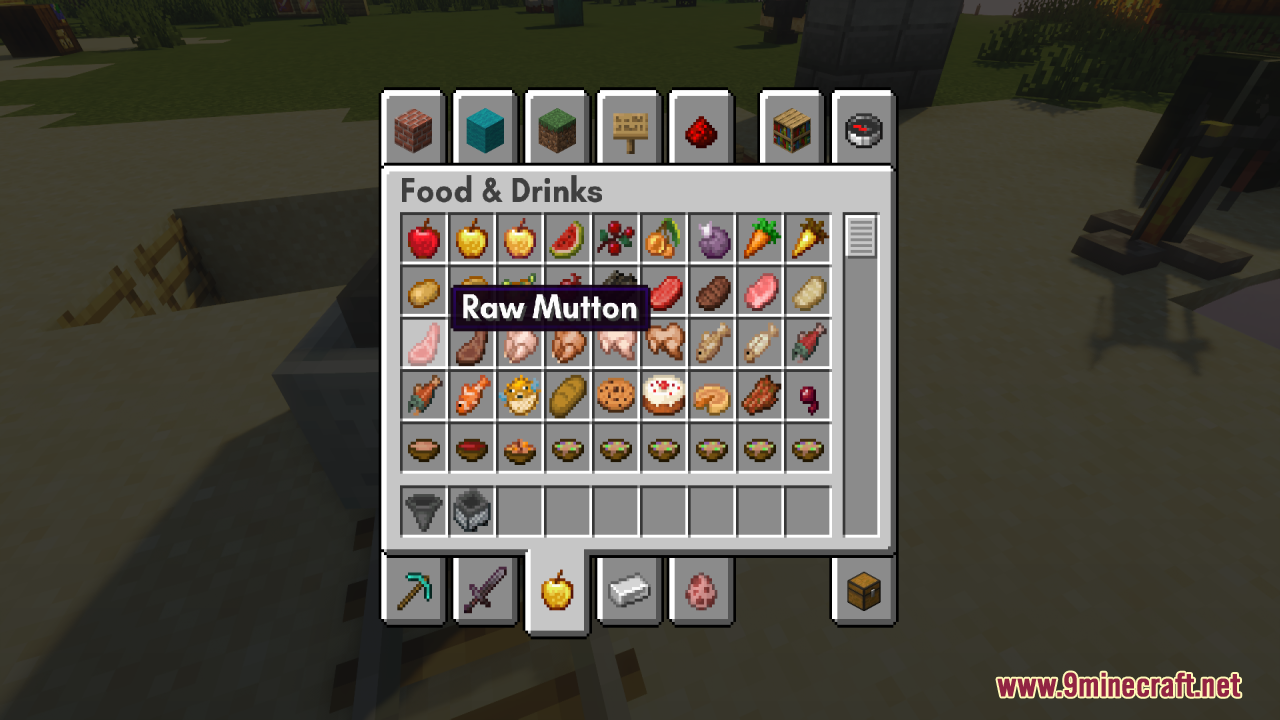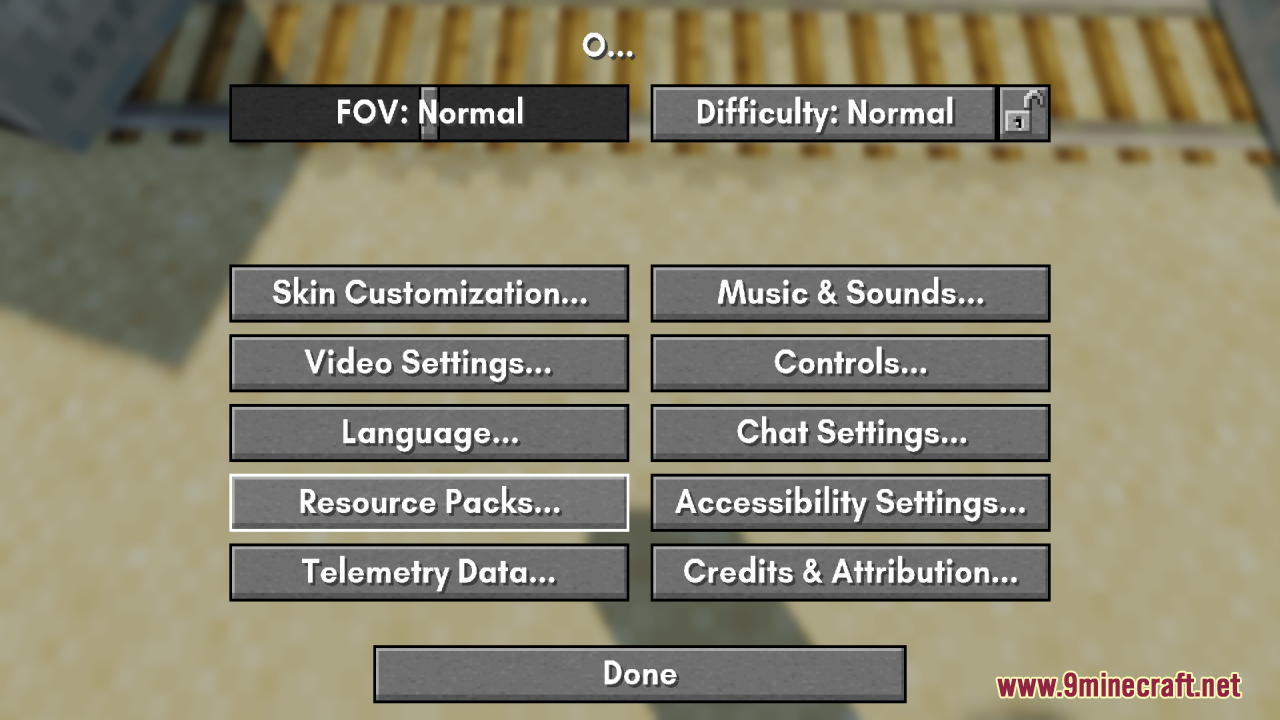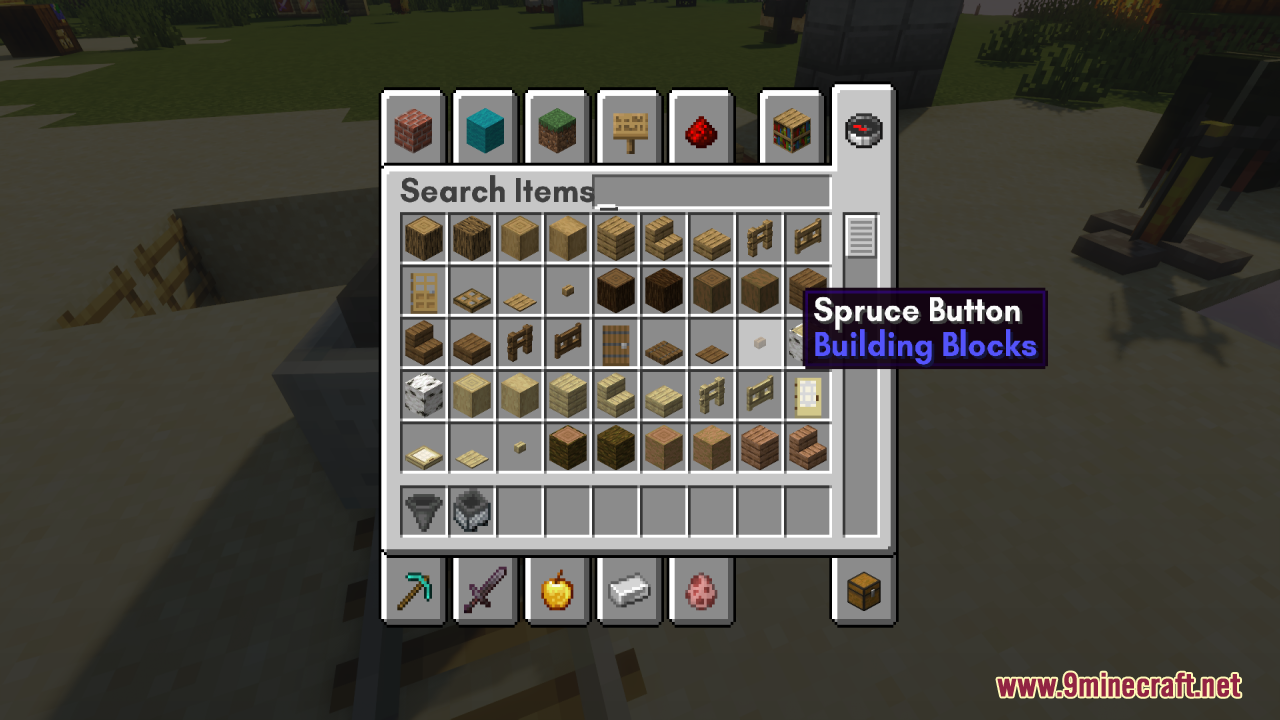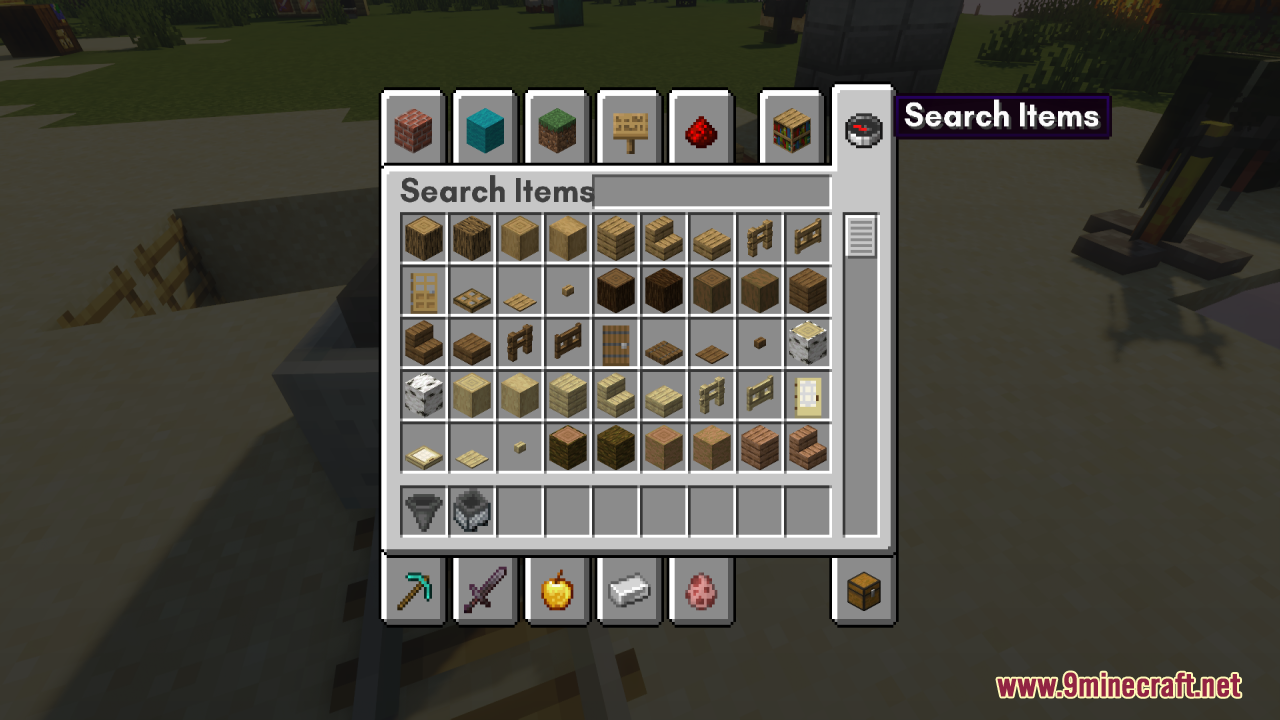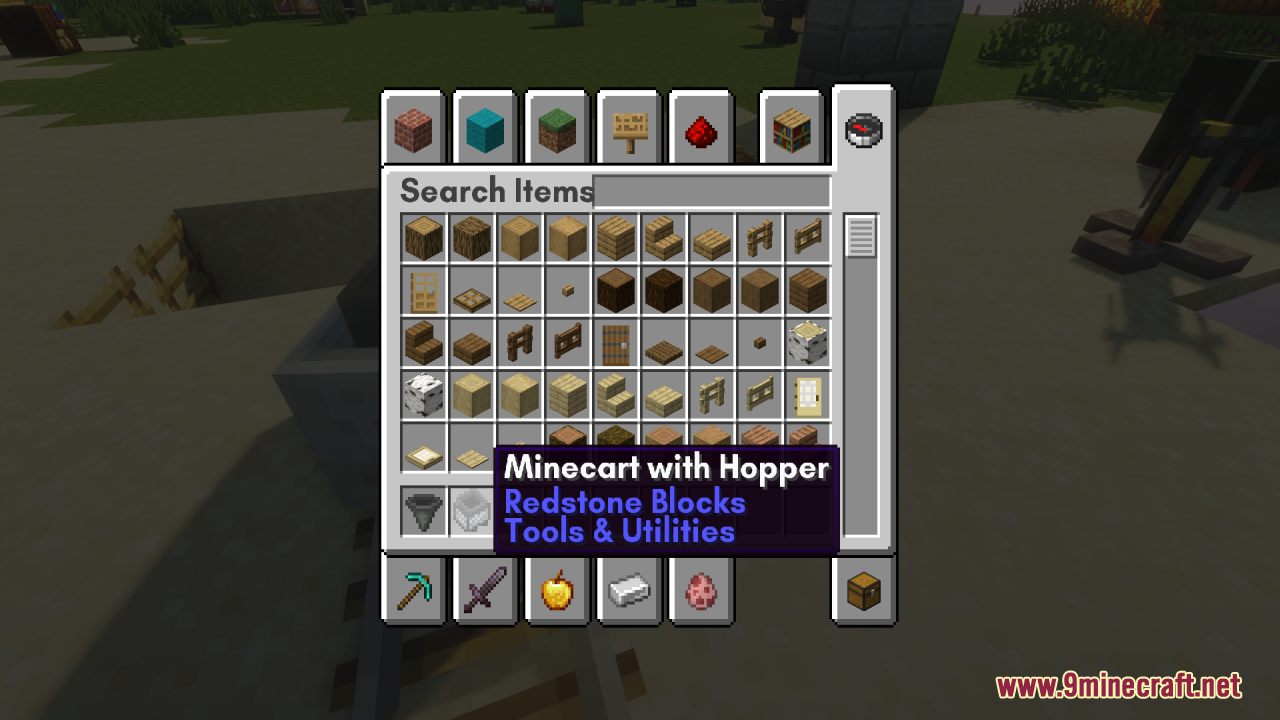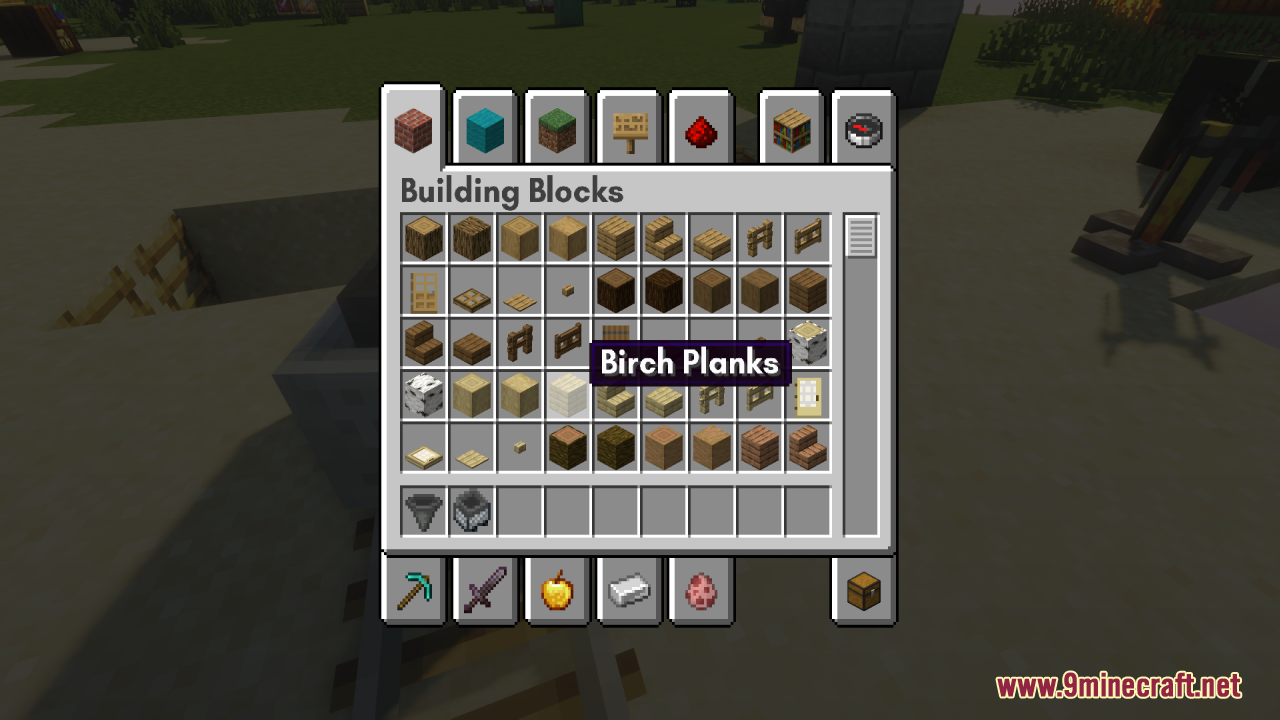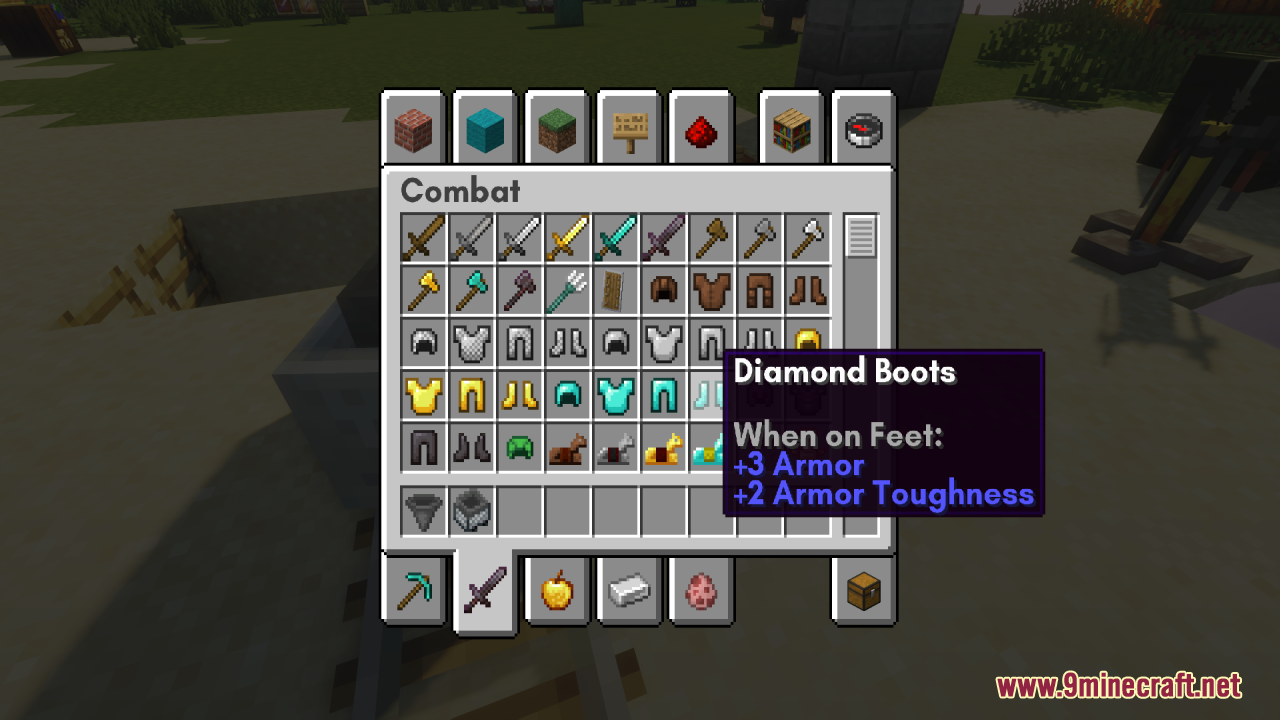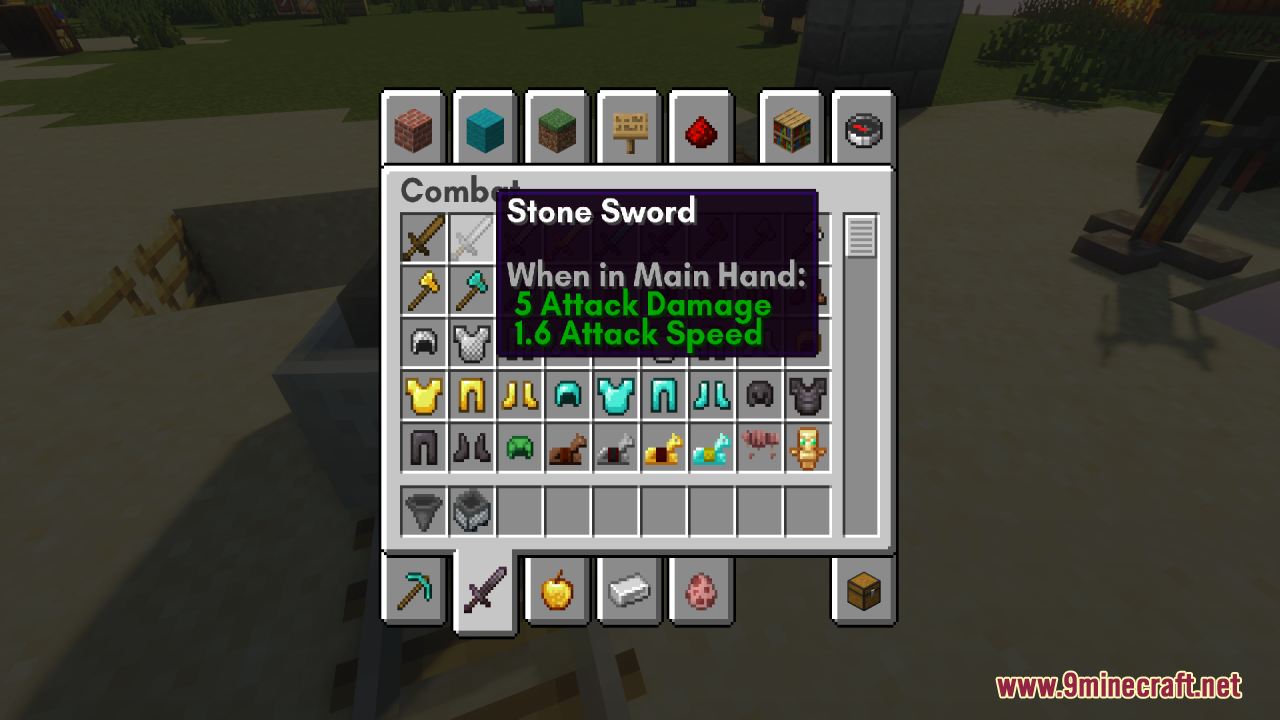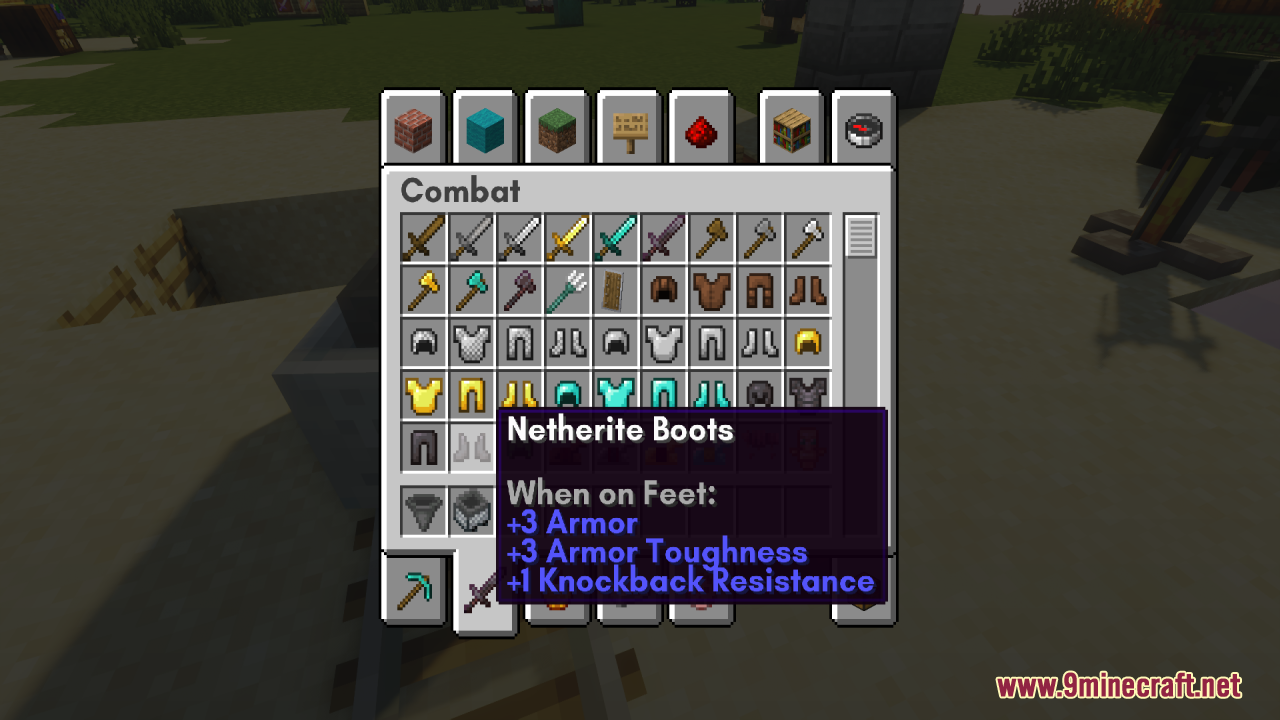
HD Font – Glacial Indifference Resource Pack replaces Minecraft’s default font with the Glacial Indifference font, offering a higher-quality, modern sans-serif typeface. This font enhances the game’s menus and text, providing a sleek and polished look. It is compatible with Minecraft versions 1.13 and above and can be used alongside other resource packs by prioritizing it in the pack order. However, it supports fewer languages than the default font, so some accented letters may appear pixelated